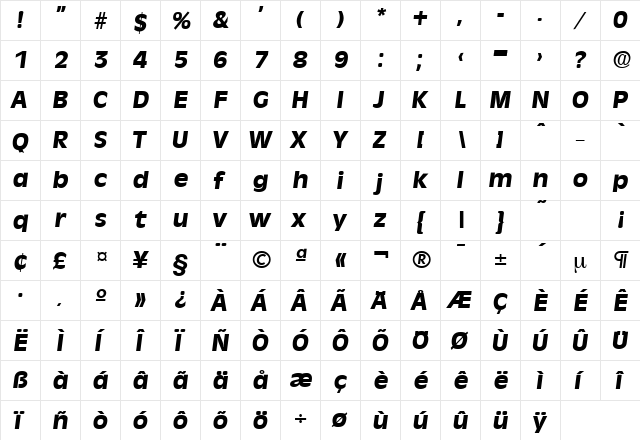
Ravenna-Serial-ExtraBold RegularItalic Font Preview
Design Context for Ravenna-Serial-ExtraBold Typeface
Ravenna-Serial-ExtraBold is a composed and adaptable typeface that performs quietly and consistently across a wide range of design contexts. The slanted form adds forward momentum and visual energy. The heavy weight commands attention and anchors typographic hierarchies.